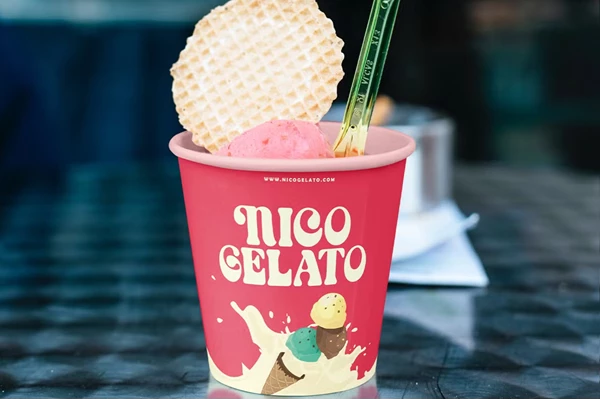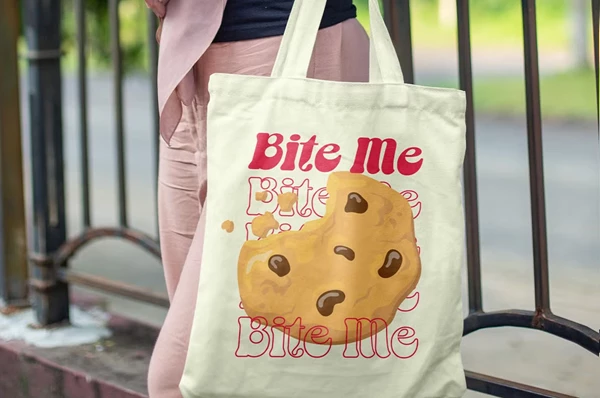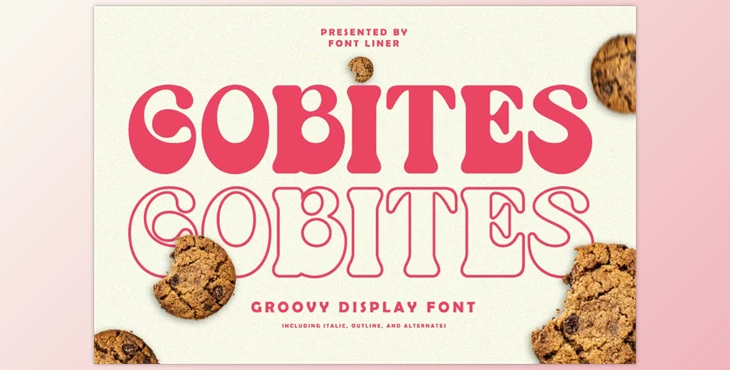
Gobites - Groovy Retro Font:
Gobites is a lively and nostalgic retro display font that could revive any design project. It comes with other alternatives to improve your outlines with a distinctly groovy charm. Specially designed for several purposes, Gobites is ideal for logos, stickers, packaging, Cricut projects, brand identity and supports social media platforms like YouTube and Instagram, shift magazines, books, apparel, posters, websites, or any other project you undertake.
- For further design flexibility, it includes Gobites Outline and Gobites Italic styles.
- To improve typography, it comes with stylistic alternates.
- Multilingual support expands usability in various regions.
- A detailed guide on using alternates for creative design solutions is included.